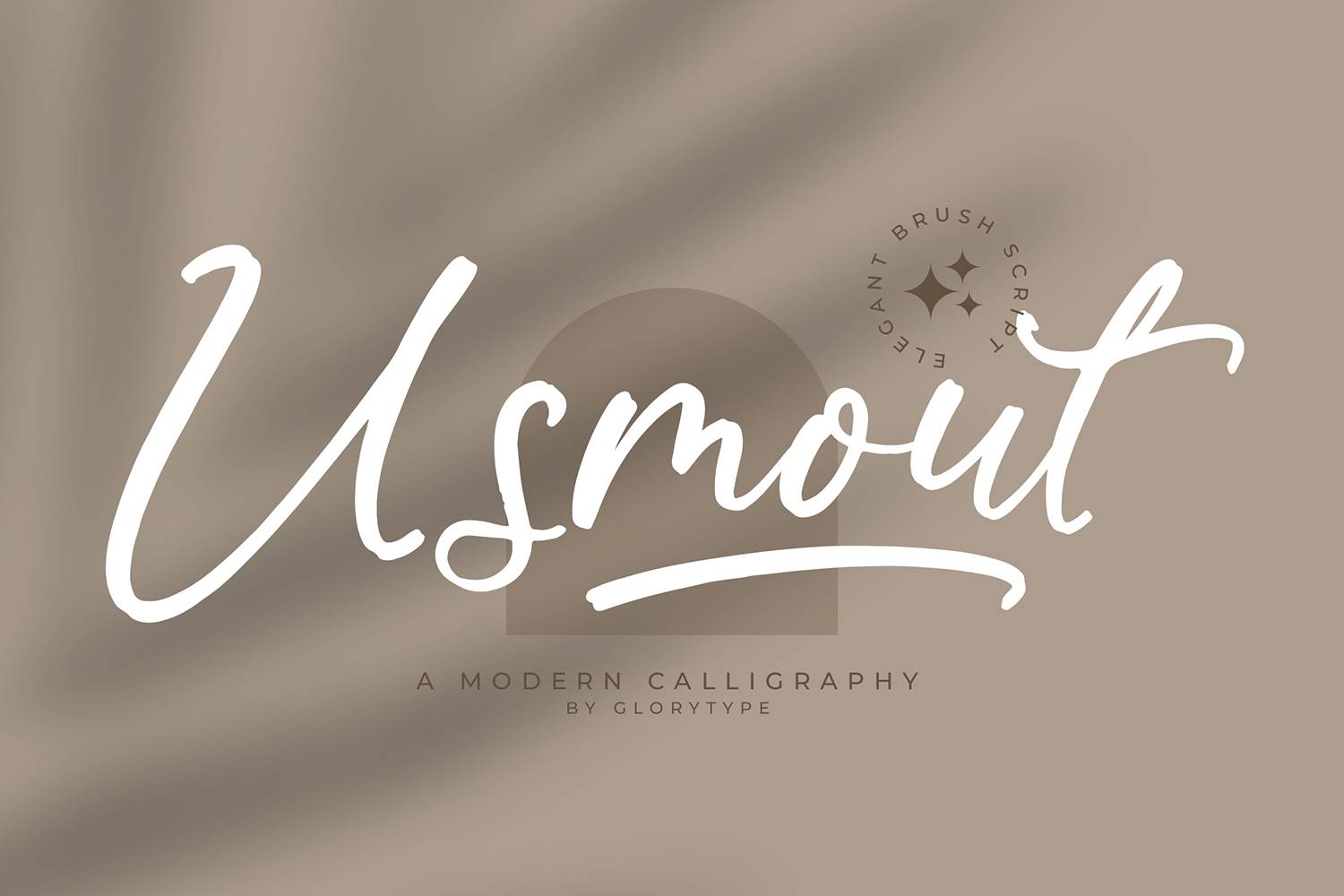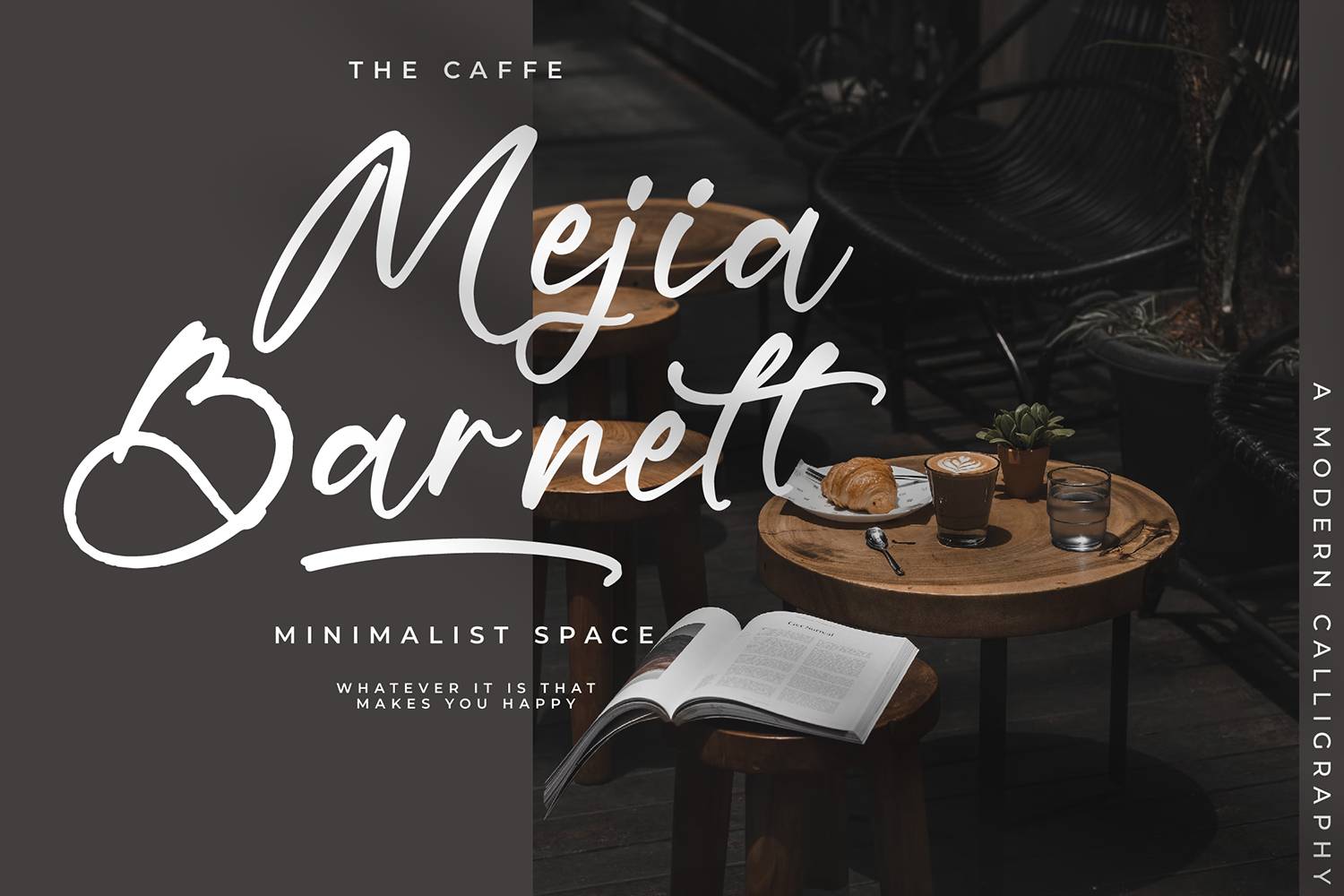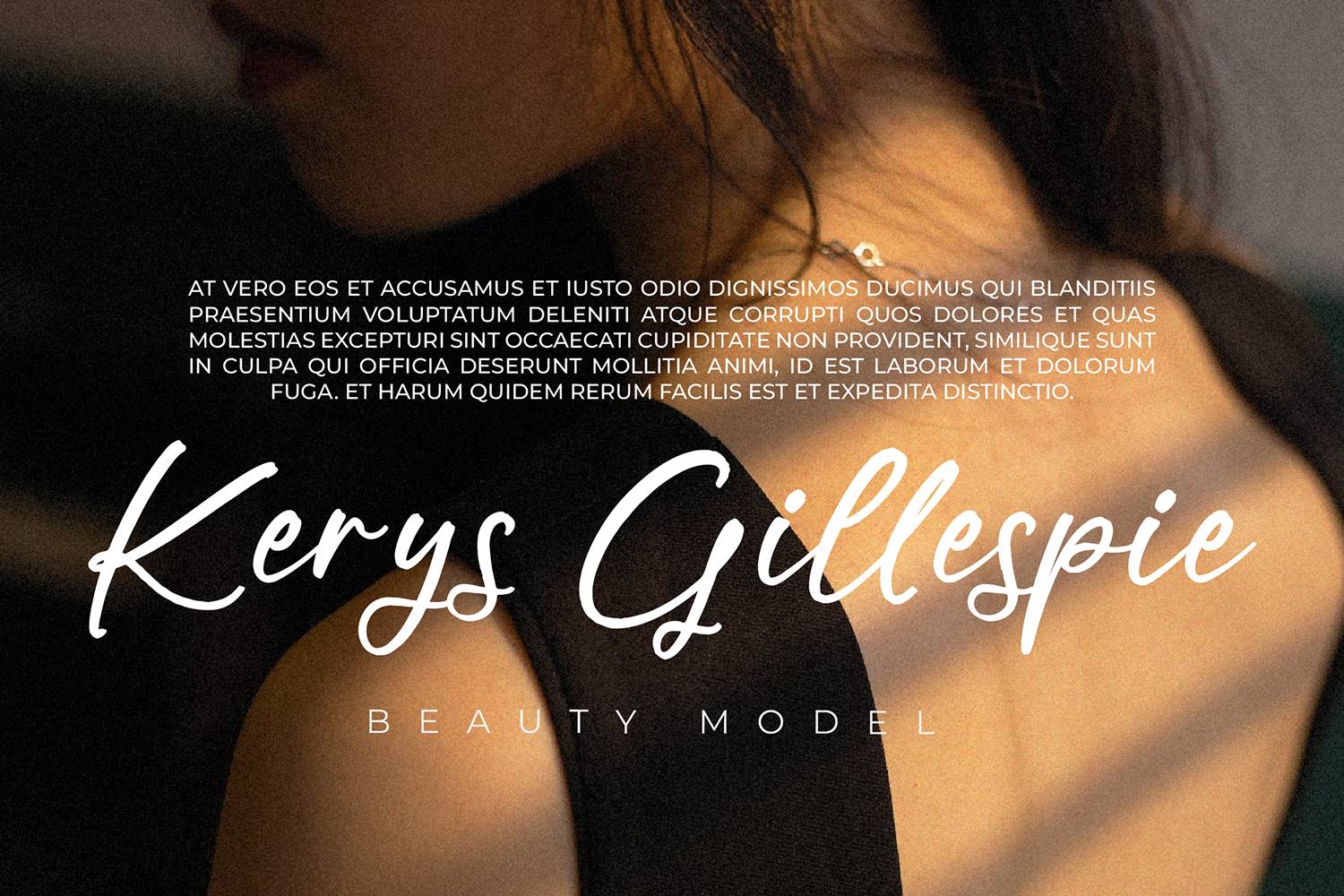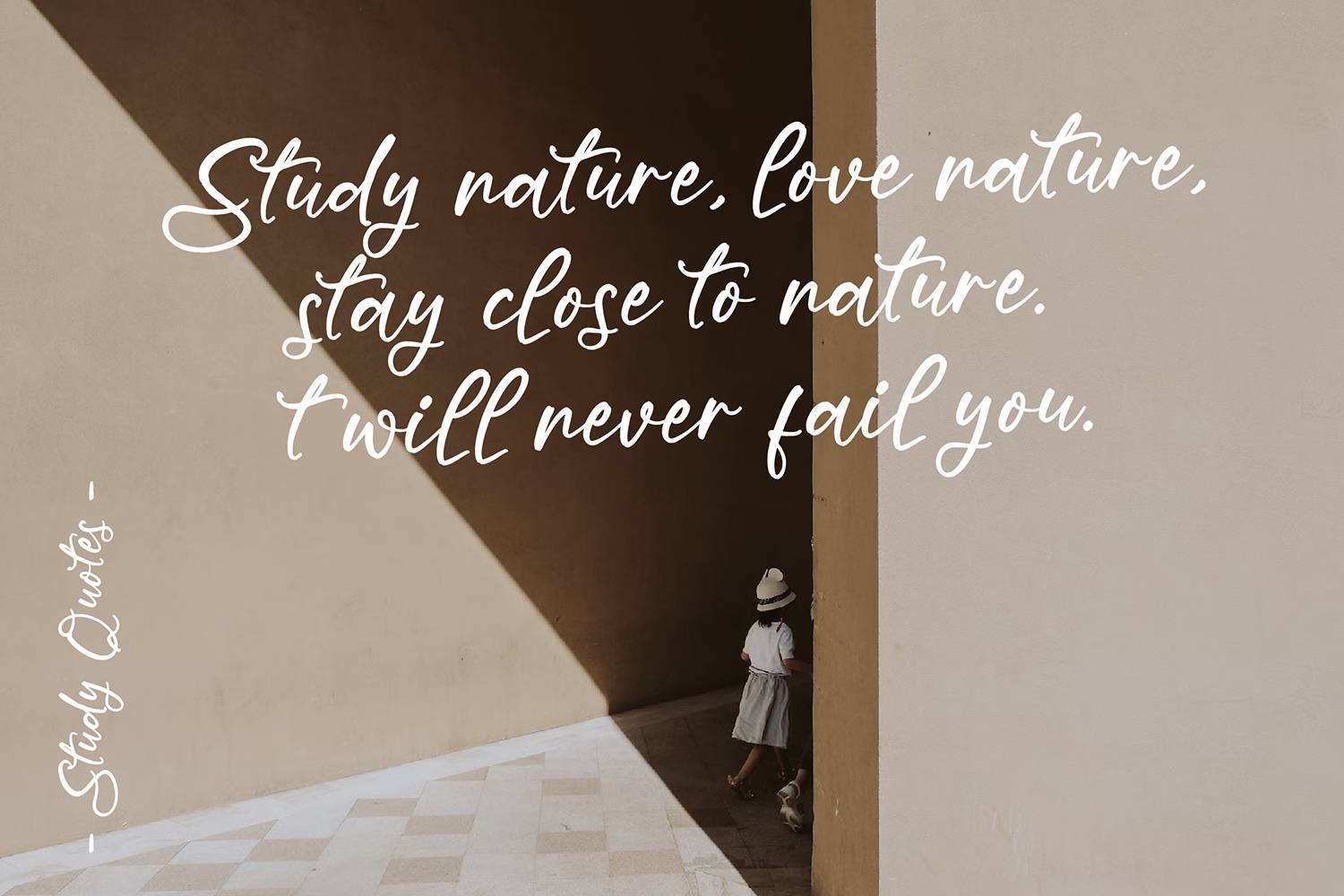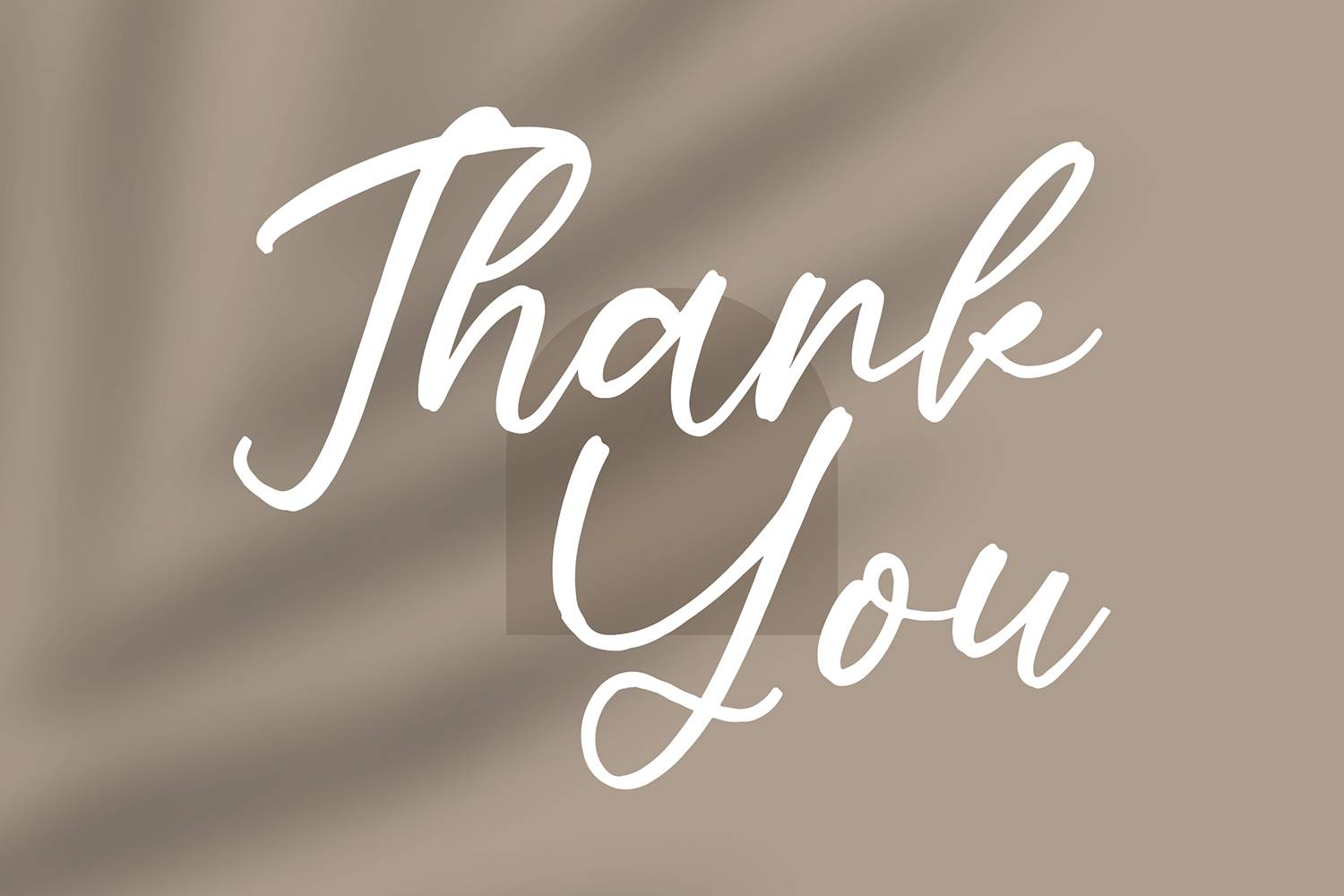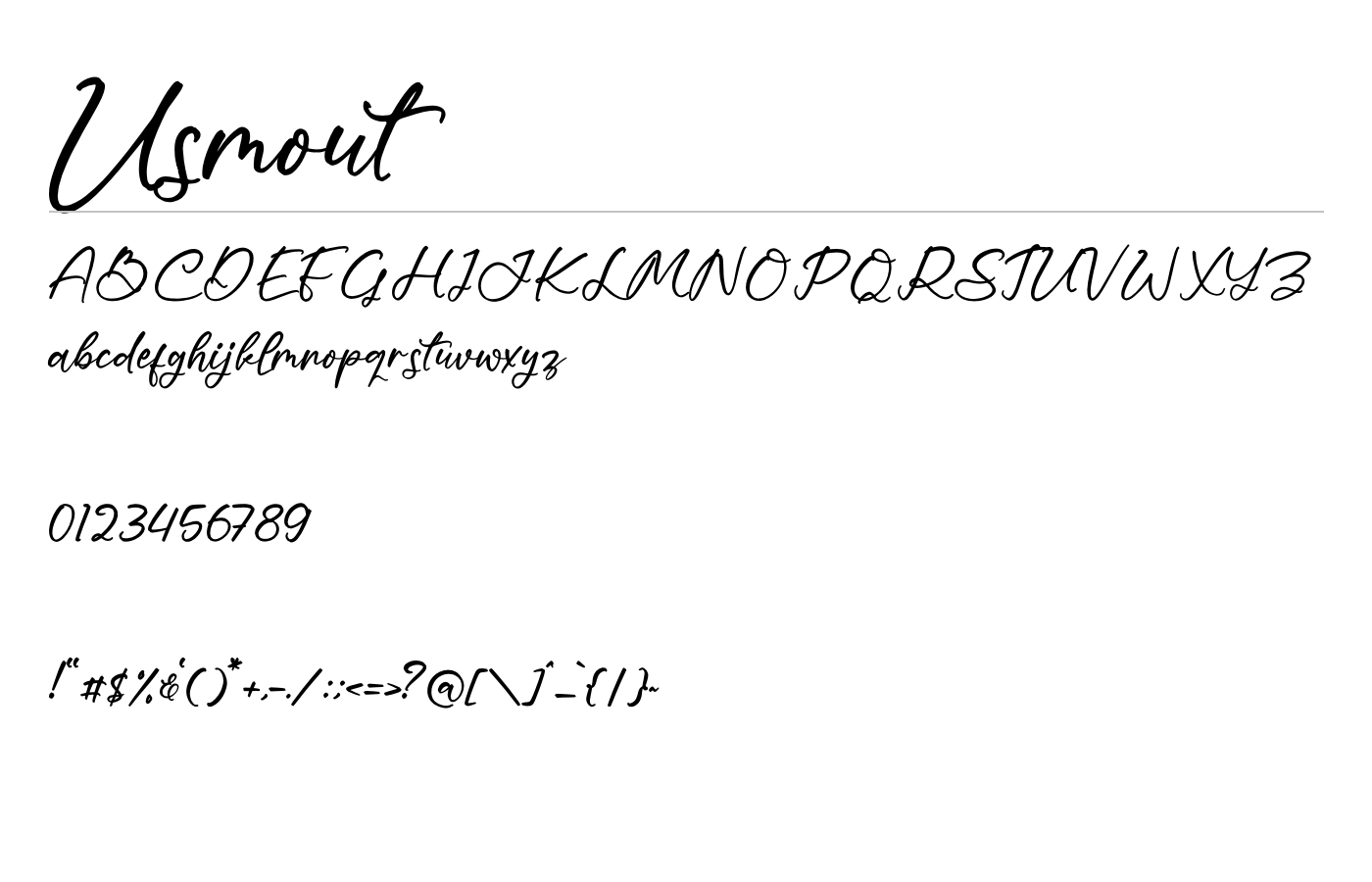
Usmout is a stylish handwritten script font characterized by its elegant, fluid strokes and slightly slanted letterforms that convey a natural, personal touch. Its light weight and airy spacing make it ideal for creative projects such as invitations, branding, and editorial headlines where a graceful, warm, and approachable feel is desired. This font works best in designs that need a sophisticated yet casual vibe, bringing personality and charm to any visual communication.
Usmout Font
About Usmout Font